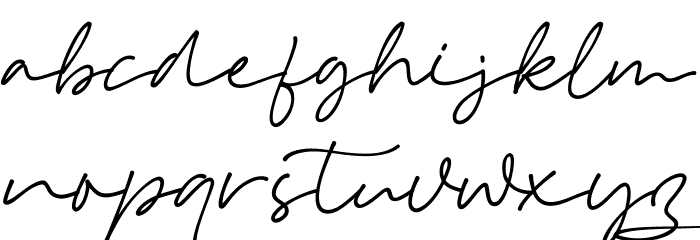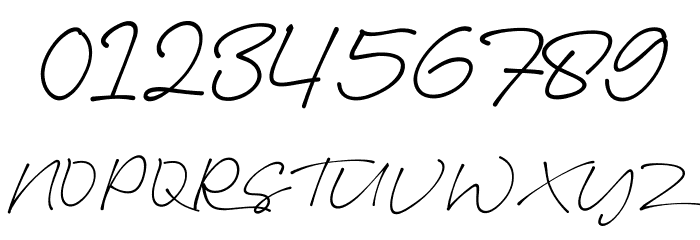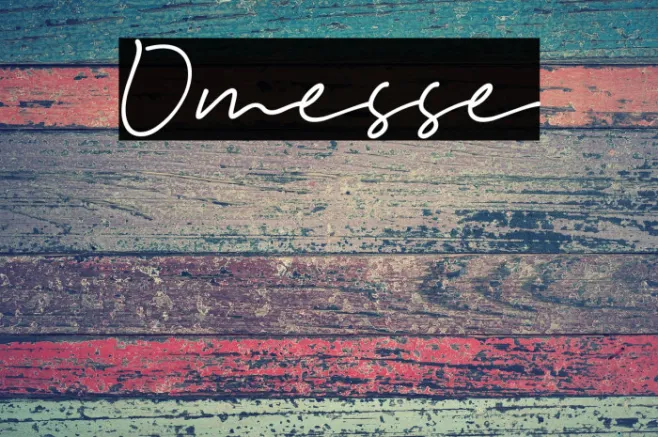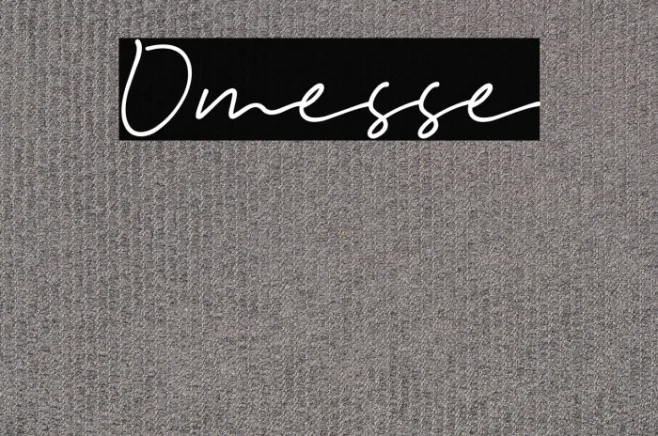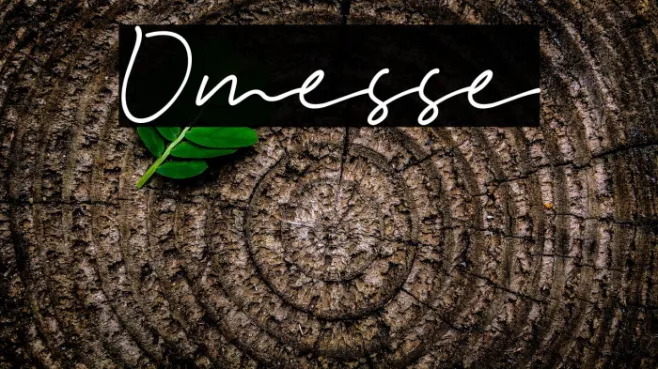
Omesse Font
This font exudes a casual and elegant handwritten style, characterized by its fluid and continuous strokes. The uppercase letters maintain a consistent height, while the lowercase letters exhibit a natural flow with varying heights and loops, adding to its organic feel. The numerals are distinct yet harmonize well with the overall script style. Special characters are seamlessly integrated, maintaining the font's cohesive appearance. Its legibility is enhanced by the moderate spacing between characters, making it suitable for both personal and professional use.
A fluid and elegant handwritten script font with a casual style.
- Proposed Projects: Ideal for wedding invitations, personal branding, greeting cards, and social media graphics.
- Overall Style: Casual, Elegant
- Use Case: Logos, Invitations, Social Media